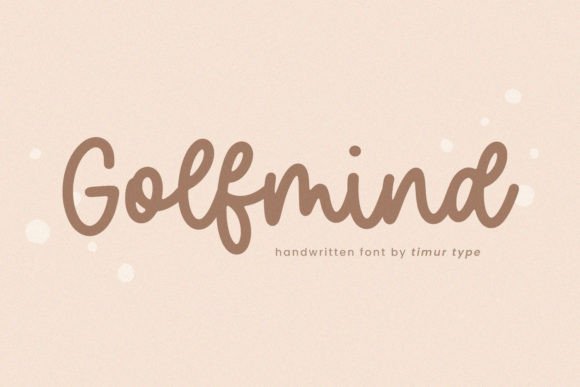
Golfmind Font: The Perfect Handwritten Font for Your Creative Projects
Are you looking for a unique and stylish font to elevate your creative projects? Look no further than Golfmind Font! In this article, we’ll explore the features and benefits of Golfmind, a handwritten font created with great care and specially designed for you.
What is Golfmind Font?
Golfmind is a beautiful handwritten font that is perfect for a wide range of creative projects. Whether you’re working on product packaging, branding, magazines, social media, weddings, or simply want to add a personal touch to your designs, Golfmind is the ideal choice. This font is designed to help you express your words in a unique and stylish way, making it perfect for adding a touch of personality to your work.
Features of Golfmind Font
So, what makes Golfmind Font so special? Here are just a few of its key features:
- Handwritten with care: Golfmind is a handwritten font that has been created with great care and attention to detail. Each letter has been carefully crafted to ensure that it is unique and stylish.
- Perfect for product packaging: Golfmind is ideal for product packaging, adding a touch of personality and style to your products.
- Branding project: Use Golfmind to create a unique and memorable brand identity that will set you apart from the competition.
- Magazines and social media: Golfmind is perfect for use in magazines and social media posts, adding a touch of elegance and sophistication to your content.
- Weddings and special occasions: Golfmind is a great choice for weddings and special occasions, adding a romantic and personal touch to your designs.
Benefits of Using Golfmind Font
So, why should you choose Golfmind Font for your creative projects? Here are just a few of the benefits of using this amazing font:
- Unique and stylish: Golfmind is a unique and stylish font that will add a touch of personality to your designs.
- Versatile: Golfmind can be used for a wide range of creative projects, from product packaging to weddings and special occasions.
- High-quality: Golfmind is a high-quality font that has been created with great care and attention to detail.
Tips for Using Golfmind Font
Here are a few tips for using Golfmind Font:
- Use it sparingly: Use Golfmind sparingly to add a touch of personality to your designs.
- Experiment with different sizes: Experiment with different font sizes to find the perfect size for your design.
- Pair it with other fonts: Pair Golfmind with other fonts to create a unique and stylish look.
In conclusion, Golfmind Font is a beautiful handwritten font that is perfect for a wide range of creative projects. With its unique and stylish design, ease of use, and versatility, Golfmind is the ideal choice for anyone looking to add a touch of personality to their designs. So why not give Golfmind a try today and see the difference it can make to your creative projects?
Here are a few frequently asked questions about Golfmind Font:
- What is Golfmind Font?
- Golfmind Font is a handwritten font created with great care and specially designed for use in a wide range of creative projects.